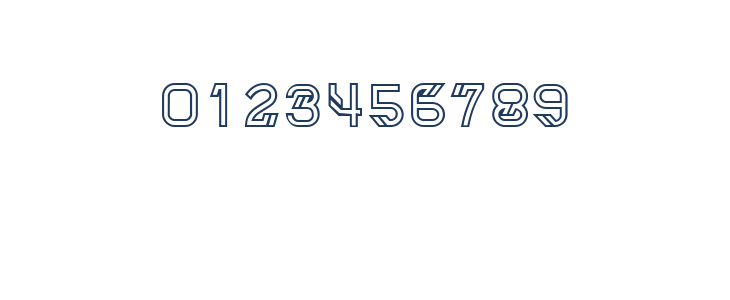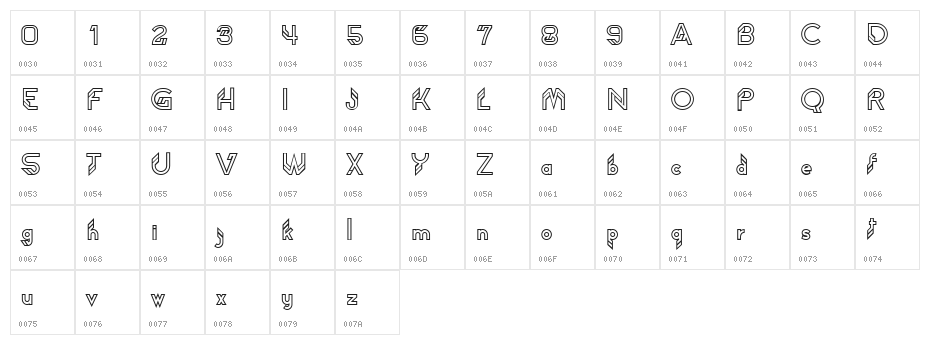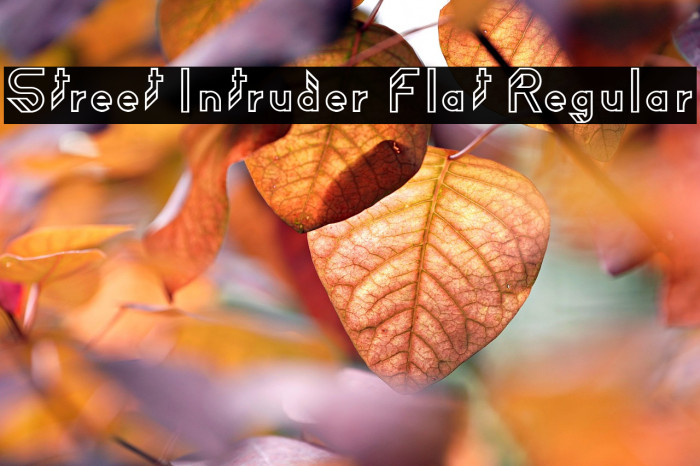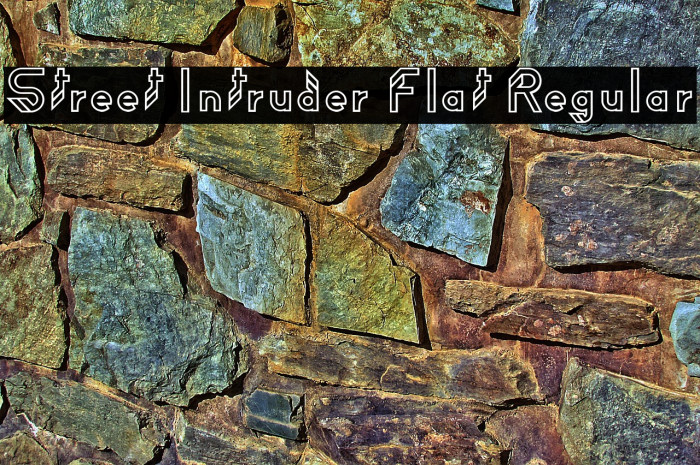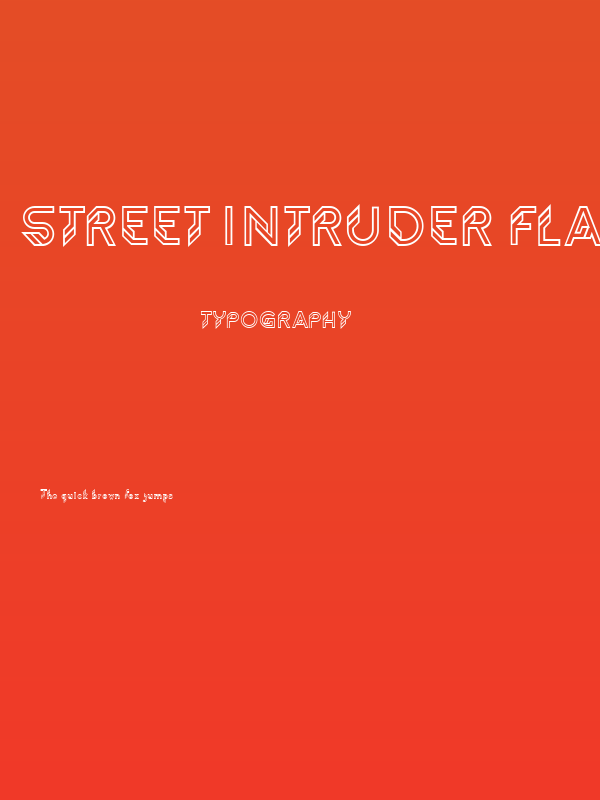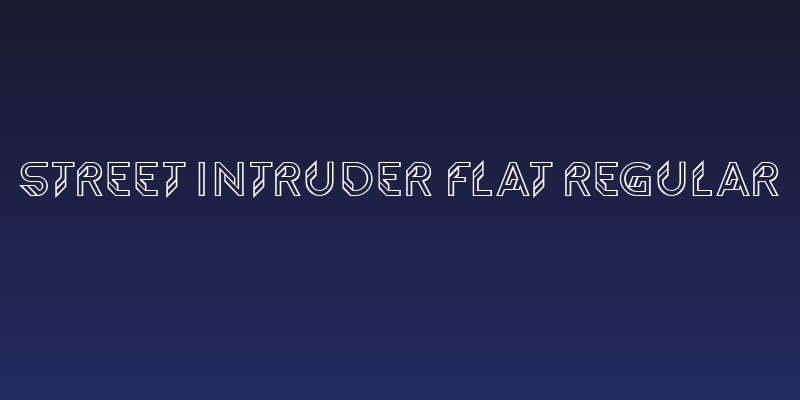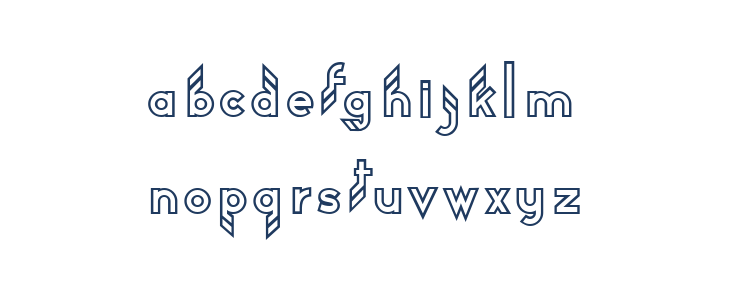
Street Intruder Flat Regular Font
Street Intruder Flat Regular Description
This font features a bold, geometric design with a modern and edgy aesthetic. The characters are outlined, creating a hollow effect that adds depth and dimension. The uppercase letters have sharp angles and a futuristic style, while the lowercase letters maintain a consistent geometric theme. Numbers and special characters are designed to match the overall style, making the font cohesive and versatile. The font's unique appearance makes it suitable for creative and eye-catching designs.